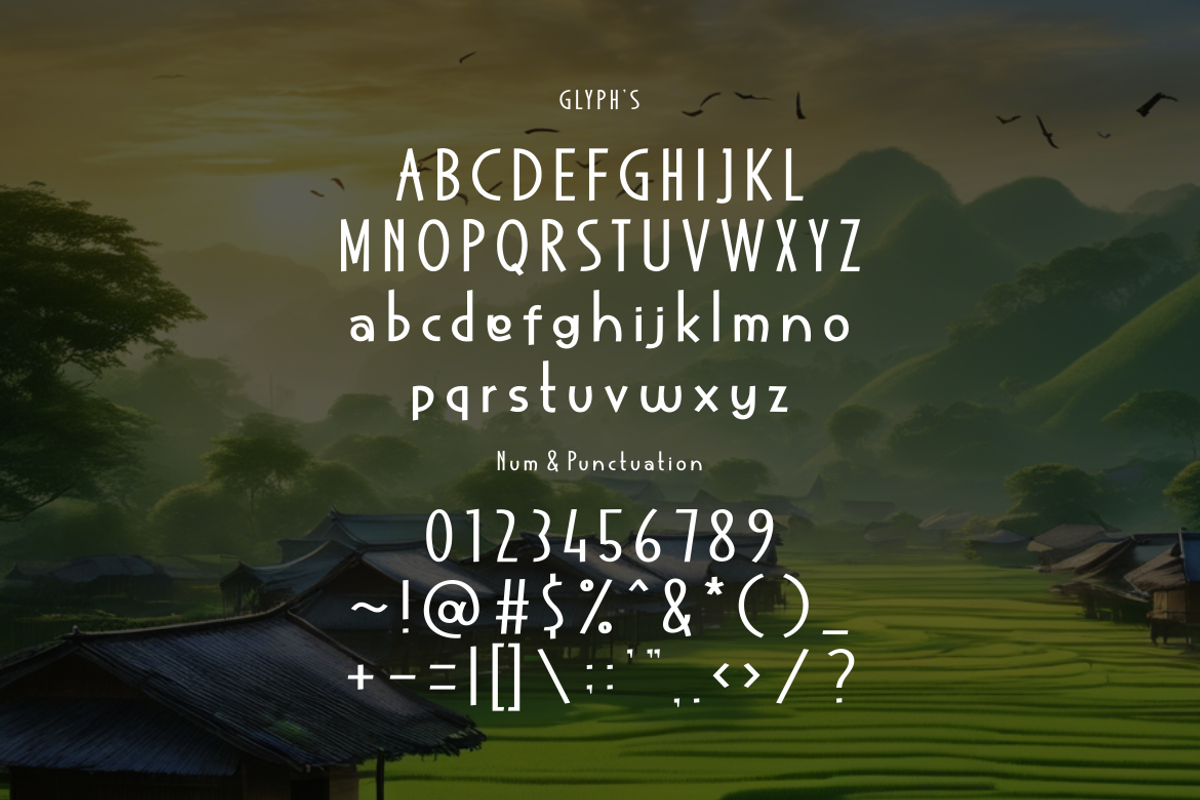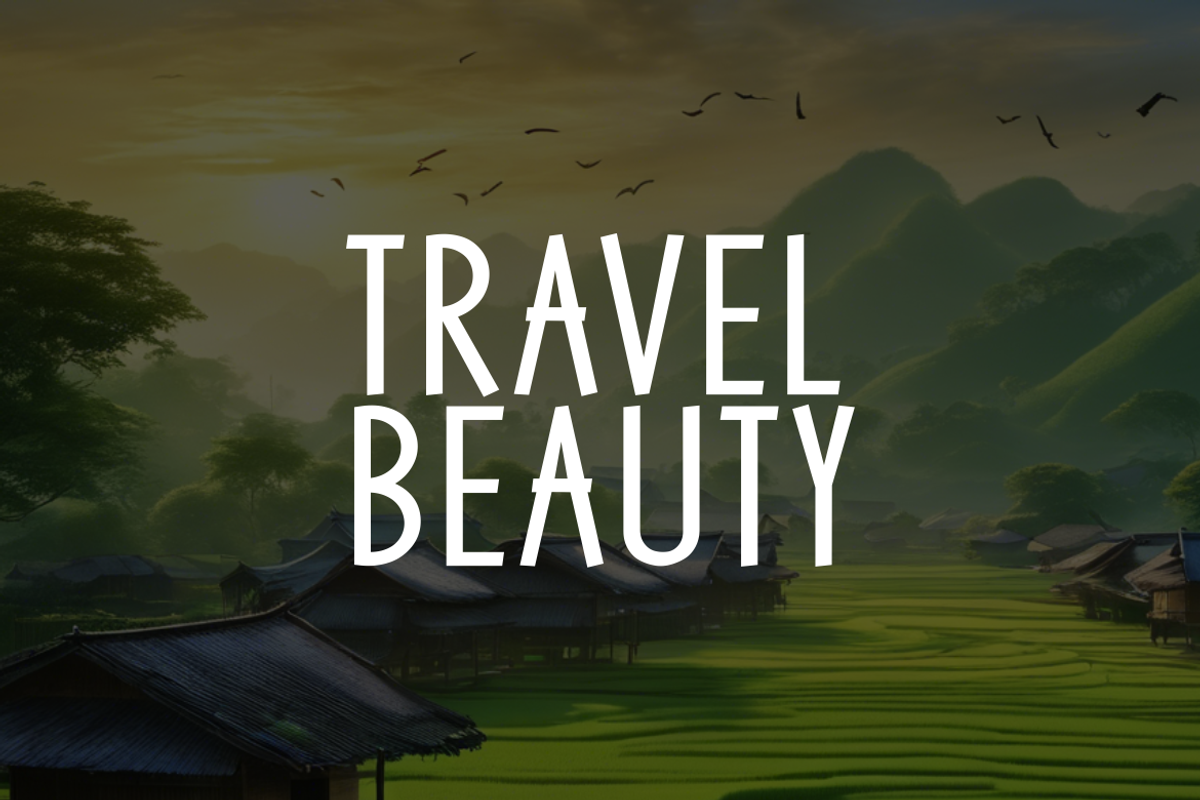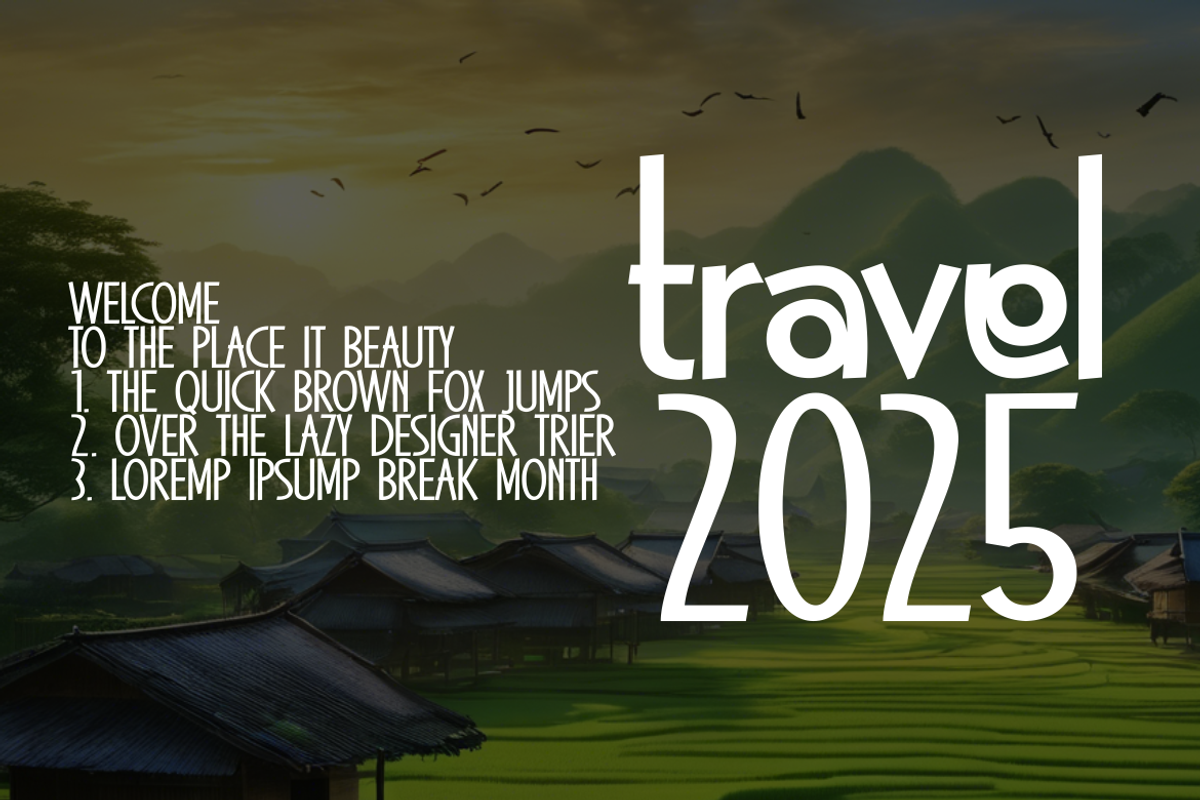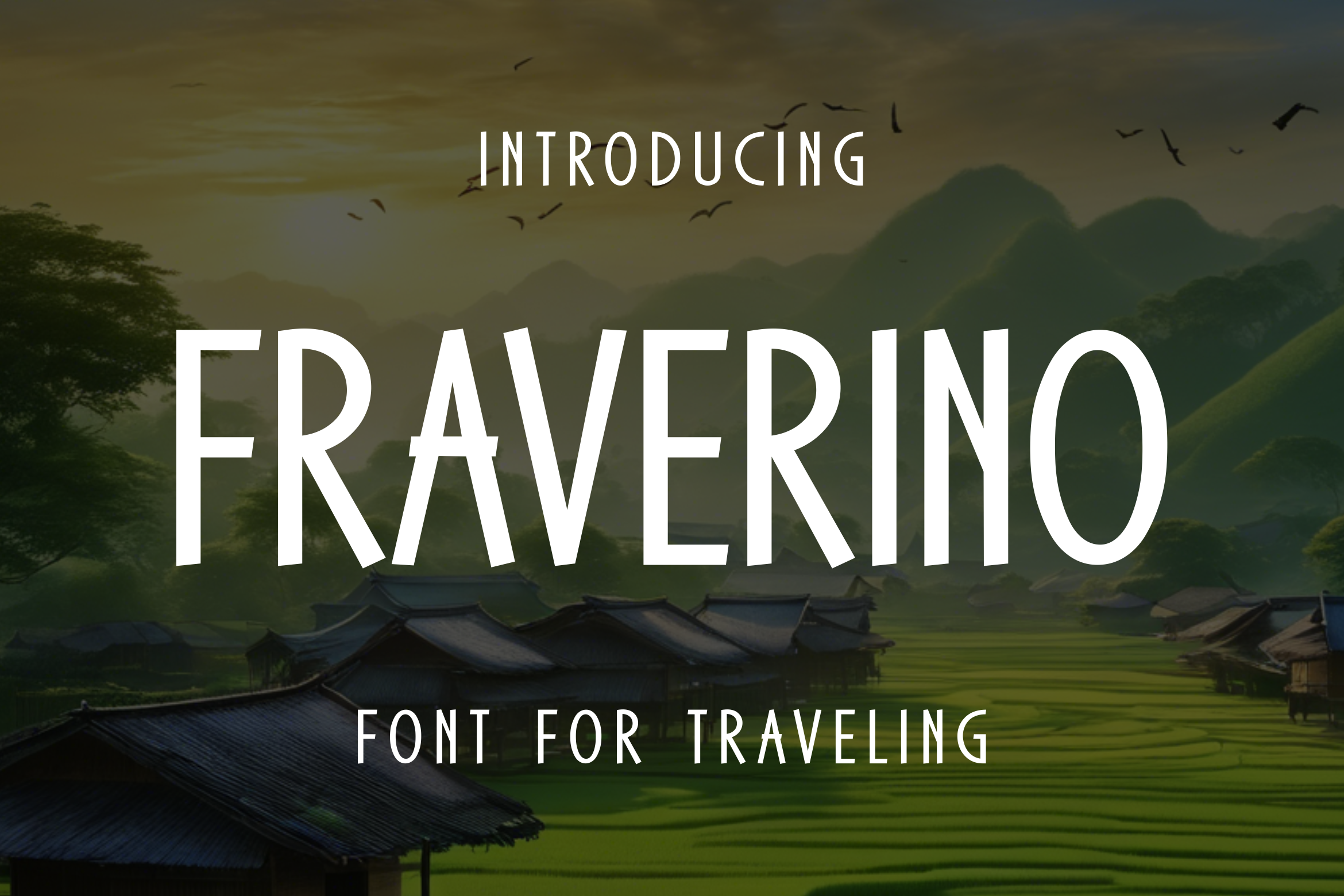
Fraverino - Travel Font
Fraverino is a modern sans-serif font designed for travel, vacation, and tourism-related themes. With both uppercase and lowercase letters, it offers versatility for branding, signage, and promotional materials. The clean and stylish design ensures readability while maintaining a distinctive character.